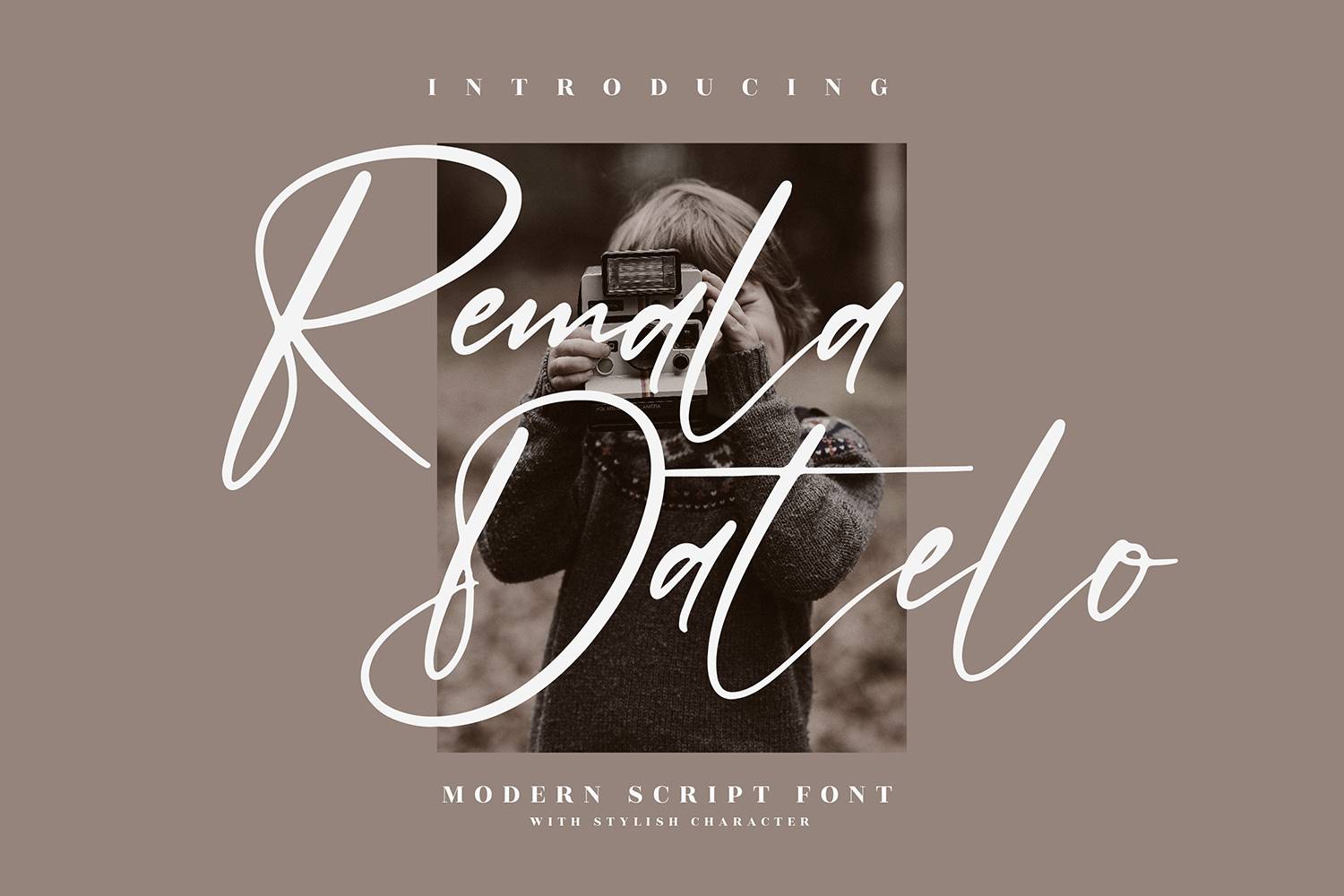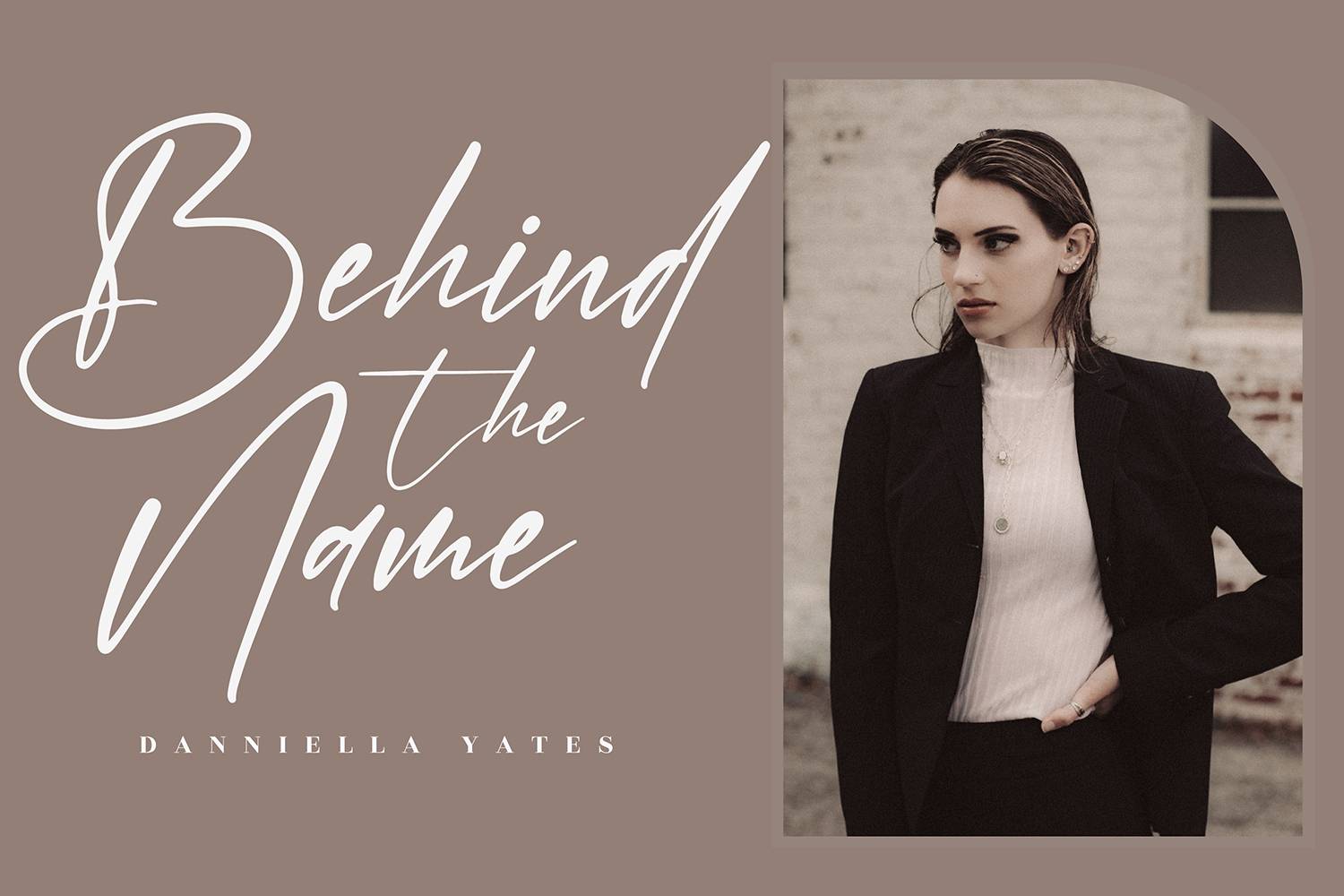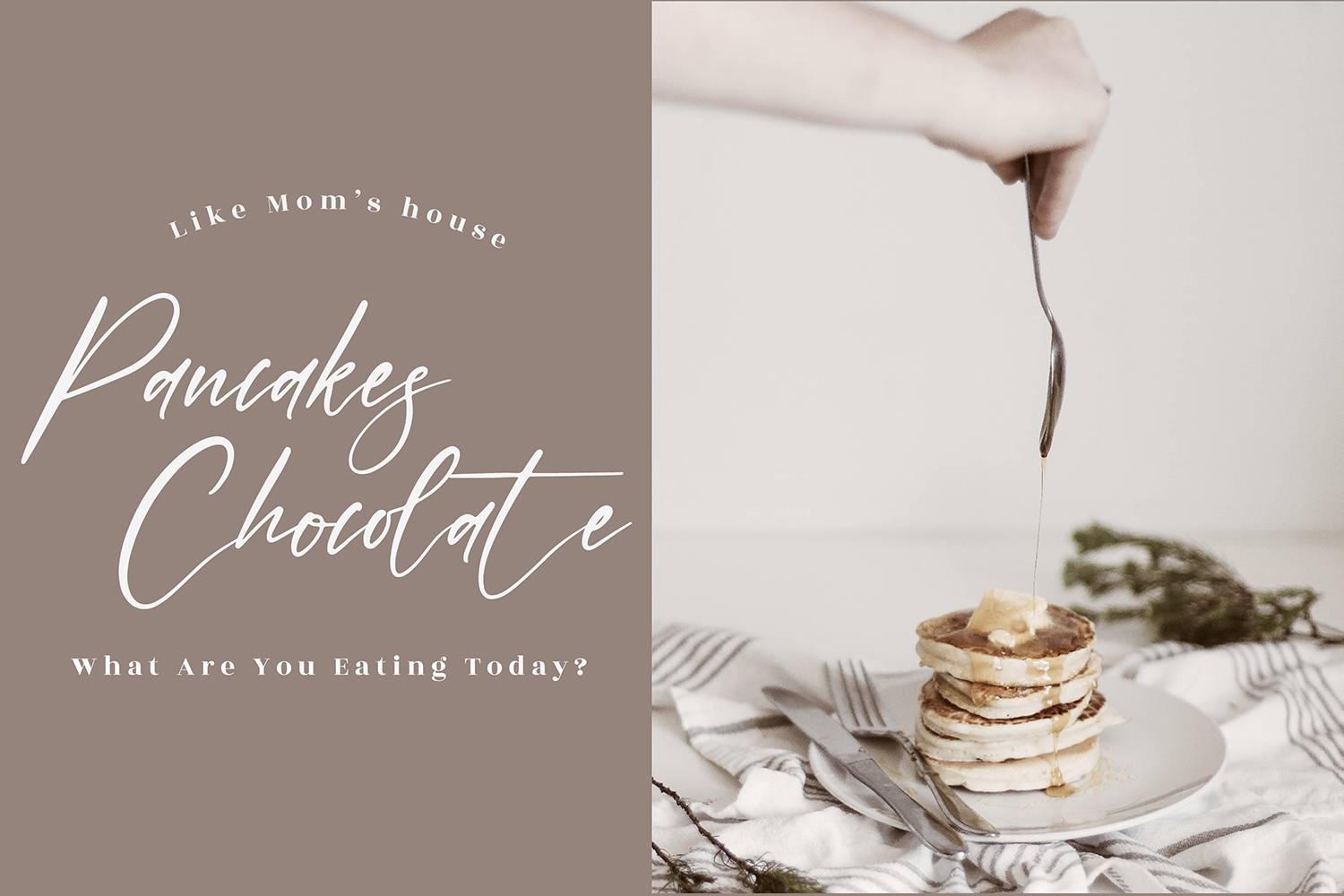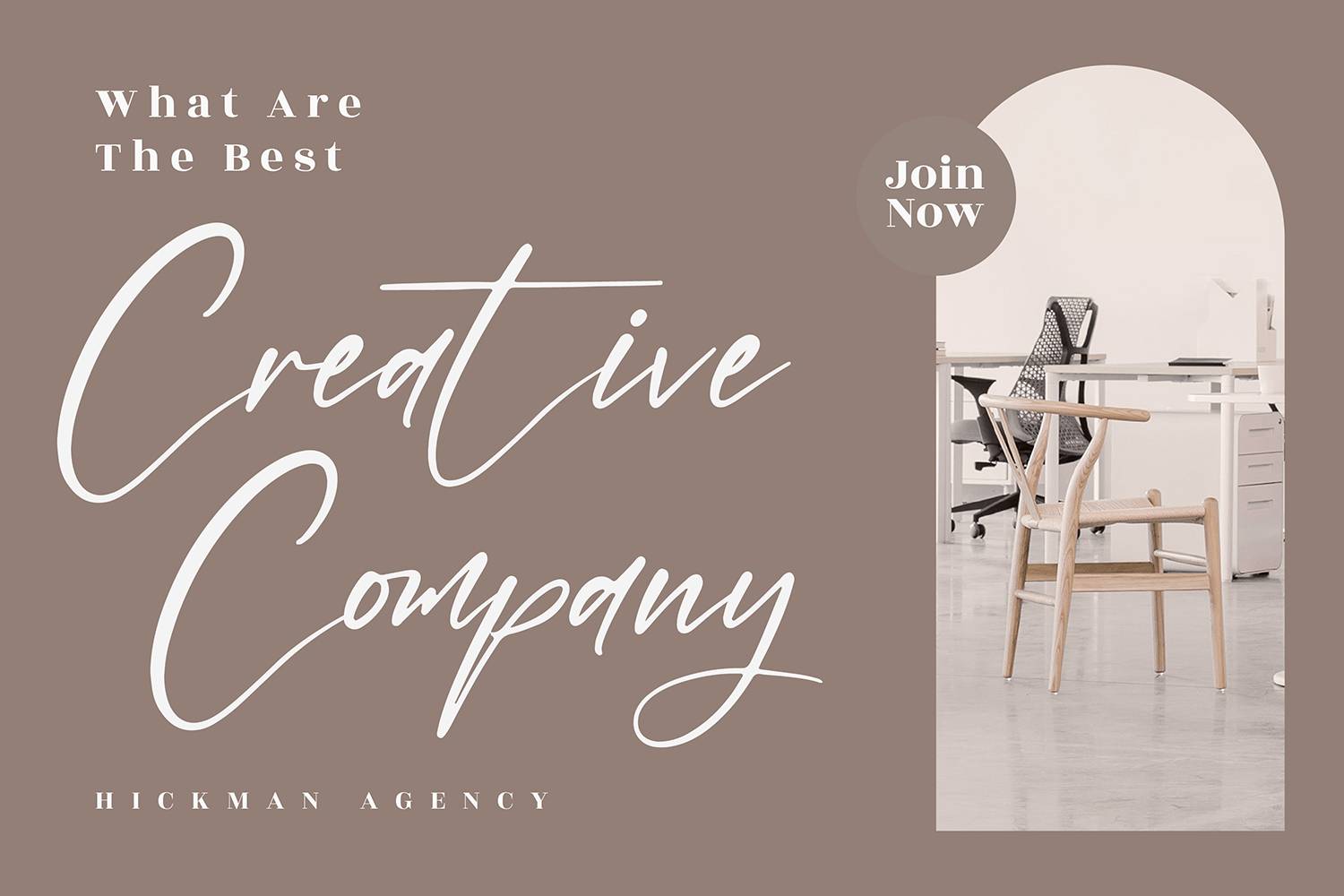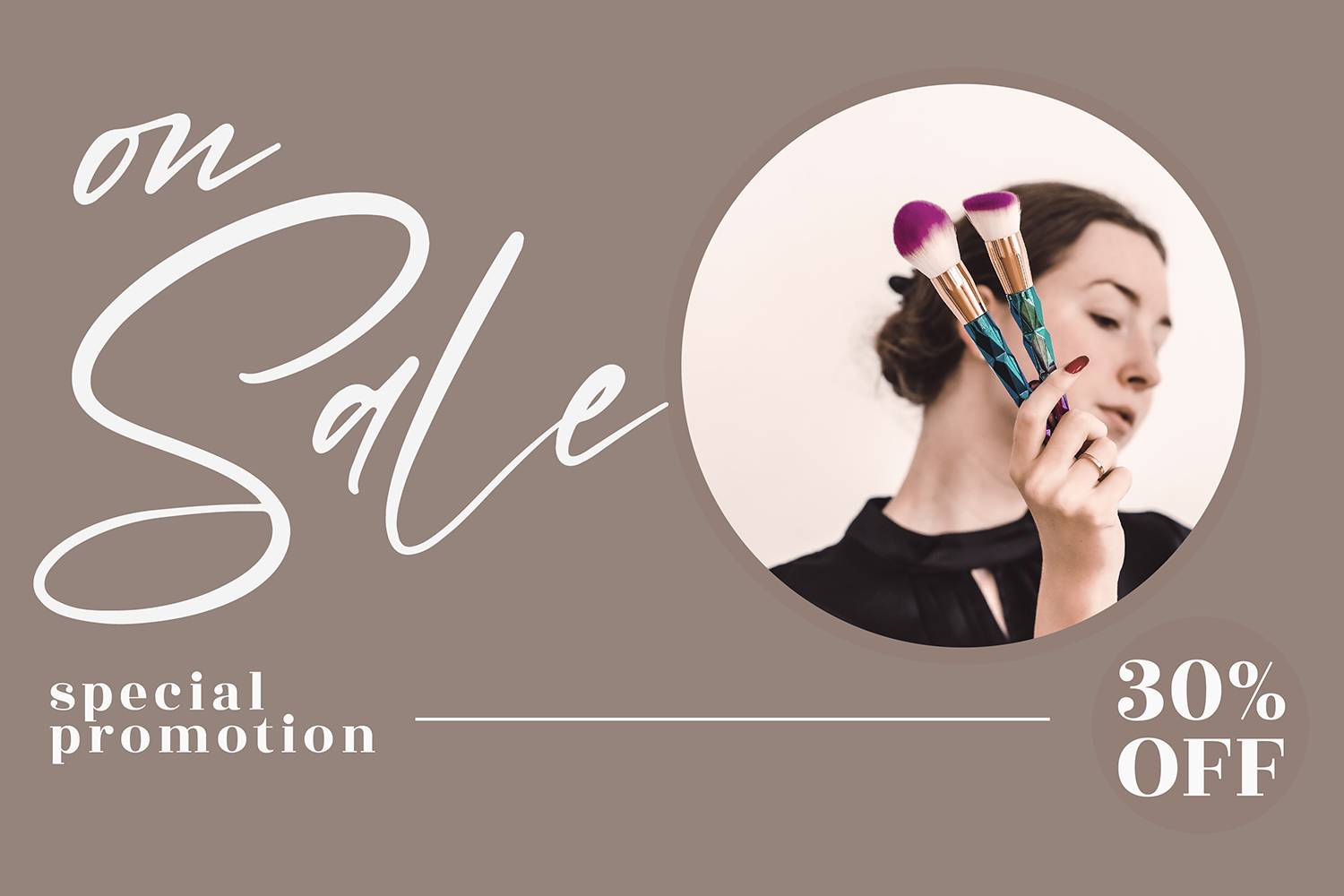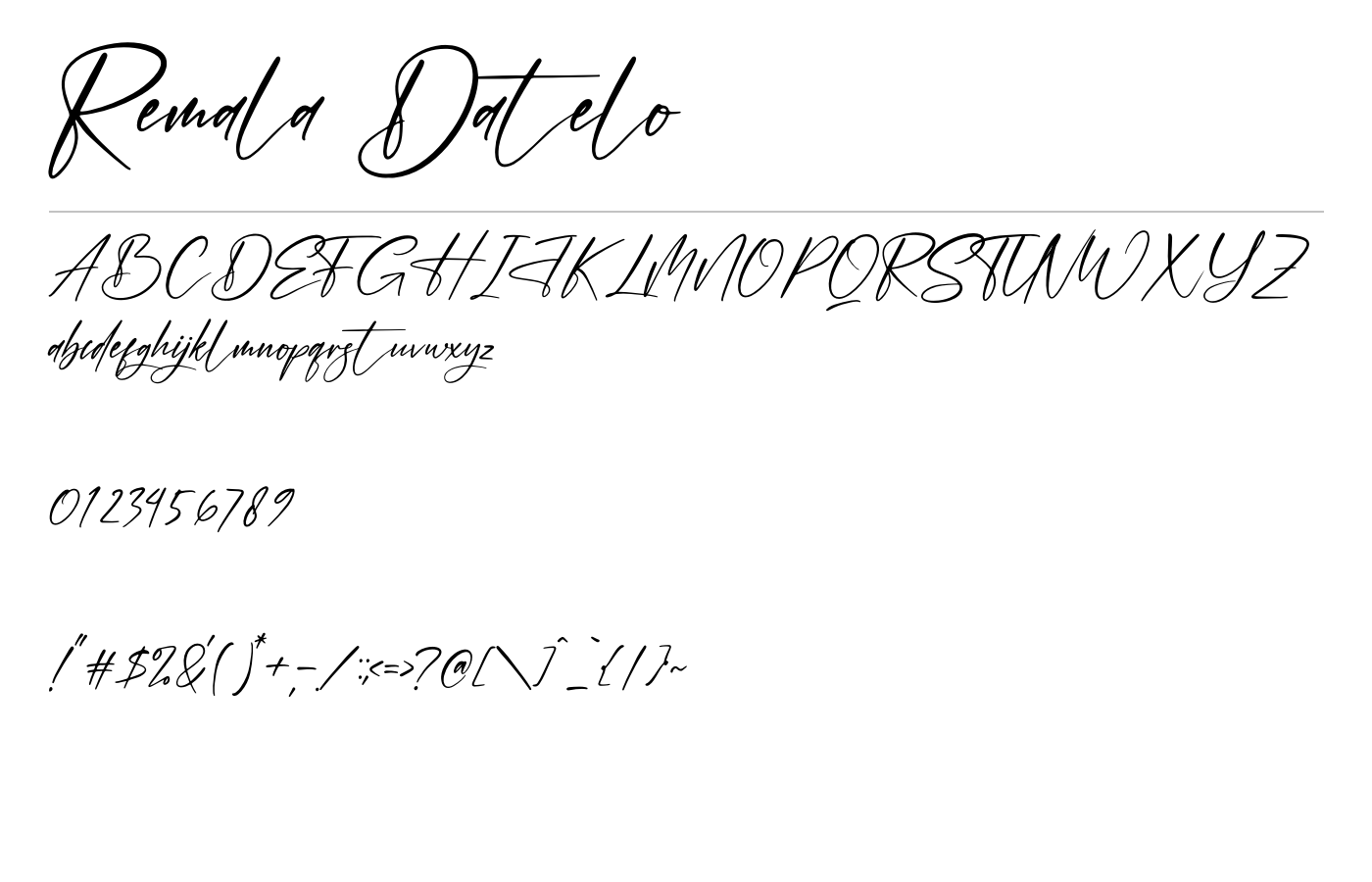
Remala Datelo is a delicate, flowing script font with a light weight and graceful, high-contrast strokes that evoke elegance and sophistication. Its slender, handwritten letterforms blend a modern casual style with refined charm, making it perfect for projects that seek a personal yet polished touch, such as invitations, branding, and editorial headlines. This font works well in any design that values a stylish, artistic feel with an intimate and expressive personality.
Remala Datelo Font
About Remala Datelo Font